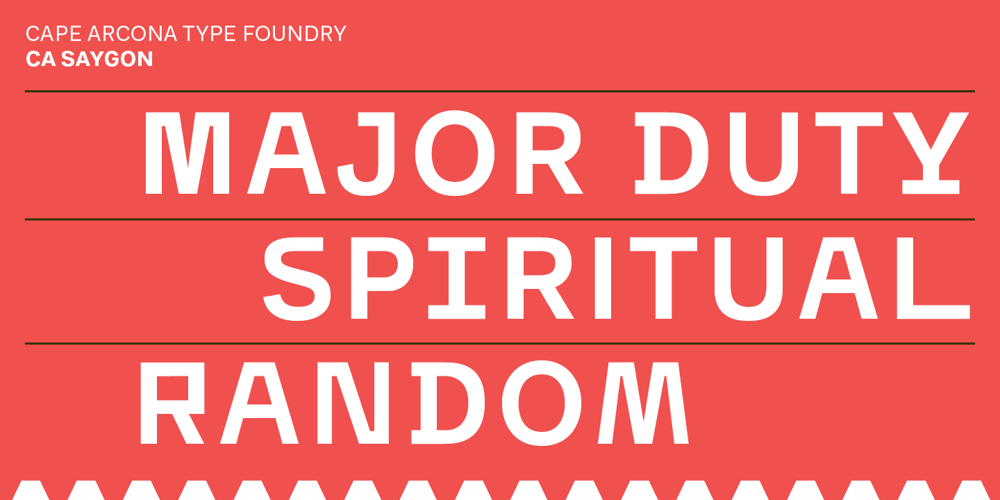
CA Saygon
CA Saygon font
CA Saygon Font Family was designed by Stefan Claudius, Thomas Schostok and published by Cape Arcona Type Foundry. CA Saygon contains 3 styles and family package options. CA Saygon was originally conceived for a large corporate design project, but as this was never implemented, the way was free to make a public font. As a striking corporate typeface, it transports the fractions of a society after the post-modernist phase. After hundreds of sketches a bunch full of letters were selected, some of them quite twisted, others rather conventional. The combination of these letters reflects a rebellion of individuality but also leads to a coherent typeface. Additionally there are alternative letterforms in the Stylistic Sets or in the glyphs palette, which keeps the font always exciting to the designer. Thanks to the Cyrillic and Latin Extended character sets, a huge language area is covered that even extends to Vietnam! Numerous OpenType features make life easier for the professional typographer: There are fractions, superscript and subscript numbers, as well as proportional and tabular numbers.